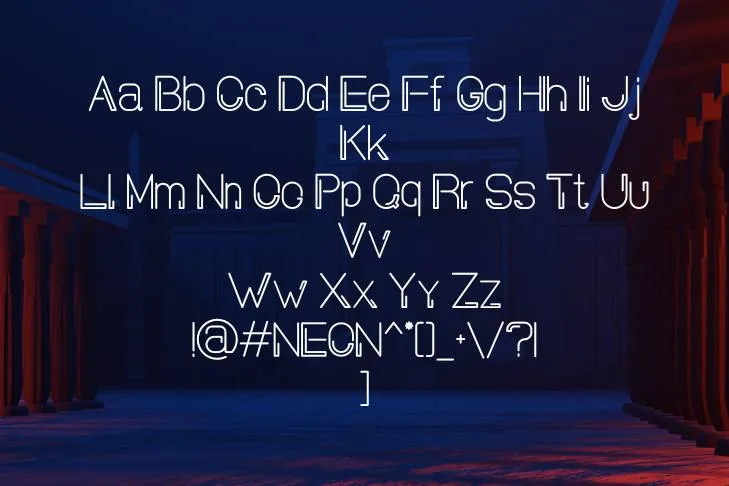
I’m going to inform you about the Neon Planet typeface today. It is a sans-serif texture with monoline characters is called Neon Planet Font. The primary author of this font is Din Studio. The best use for this font is in the creation of geometrical lettering. Along with numbers and punctuation, it features more than 120 characters with a gentle geometric appearance.
It is ideal for a variety of applications in bold design. This font’s sleek corners work well with a variety of text layouts. This texture uses characters from a number of spooky castles. Numerous characteristics of this special texture make it useful for various design tasks.
More Ways to Use Neon Planet Font
This font is appropriate for creating book covers, gaming logos, and intriguing text designs. You may use this font to create stunning presentation designs, mug designs, t-shirt designs, and post descriptions. The Neon typeface can be used to create eye-catching, striking news reports, title designs, and trademark styles for various businesses. Utilizing the odachi font opens up possibilities for creating extraordinary designs.
This font is appropriate for creating logos, wall artwork, and various sorts of interior design projects. This gorgeous style can be used for vast prospectus themes and picture presentations. This texture may also be utilized for appropriate graphical design activities such as designing wedding cards, thank-you notes, social media posts, blogs, and postcards.
Pairing Suggestion for Neon Planet Font
It can be combined with Moscow Metro font to give a 3-D effect to your projects and it works well for technology-based initiatives. Moreover, if you want to give a smooth and decent look to your designs then you can pair this font with the Black Future Display style . A sense of cohesion will have prevailed with this combination.
What kind of font is the Neon Planet font?
It is a sans-serif texture with monoline characters is called Neon Planet Font. The primary author of this font is Din Studio. The best use for this font is in the creation of geometrical lettering.
Where can I apply the Neon Planet font?
It is appropriate for creating logos, wall artwork, and various sorts of interior design projects. This gorgeous style can be used for vast prospectus themes and picture presentations. This texture may also be utilized for appropriate graphical design activities such as designing wedding cards, thank-you notes, social media posts, blogs, and postcards.